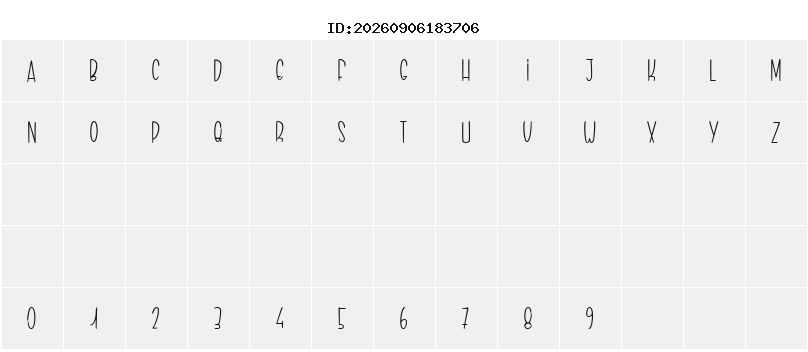
• Font Name: THE BEST THINGS IN LIFE ARE FREE
• Manufacturer: Maelle.K
About THE BEST THINGS IN LIFE ARE FREE.ttf
THE BEST THINGS IN LIFE ARE FREE.ttf is a modern, elegant sans-serif font designed for ultimate readability and visual harmony. Perfect for branding, headlines, web design, and print materials.